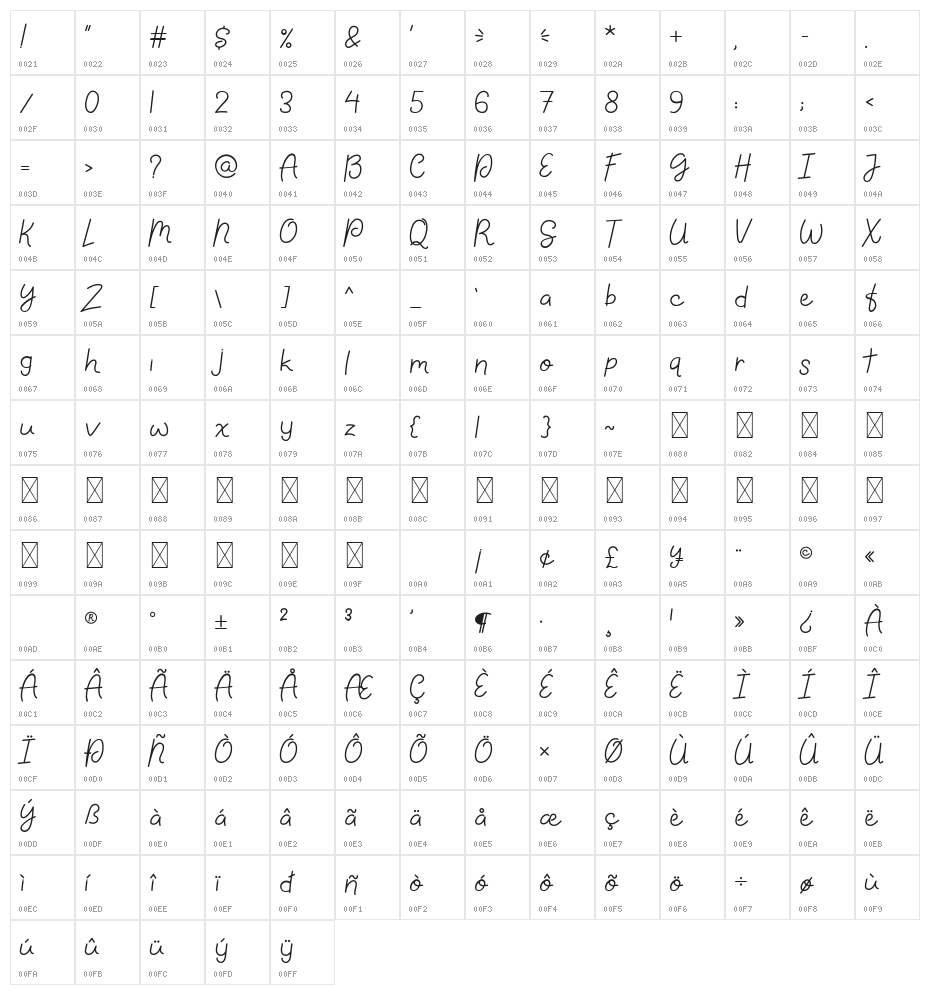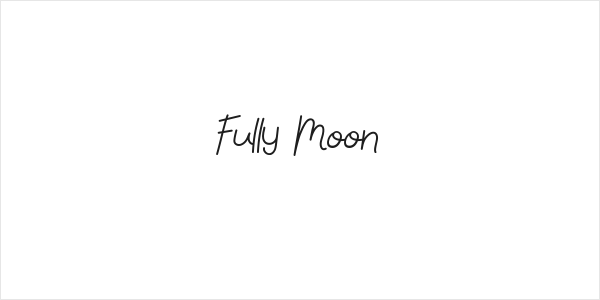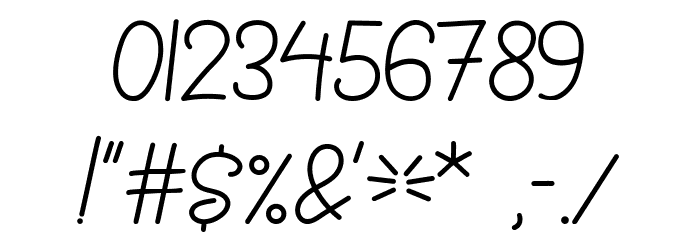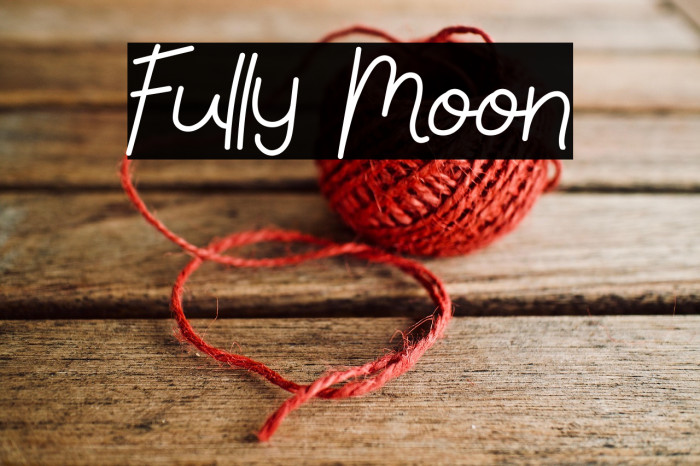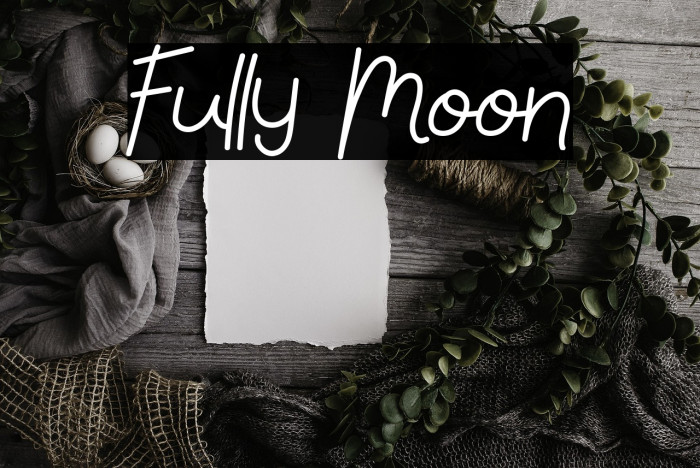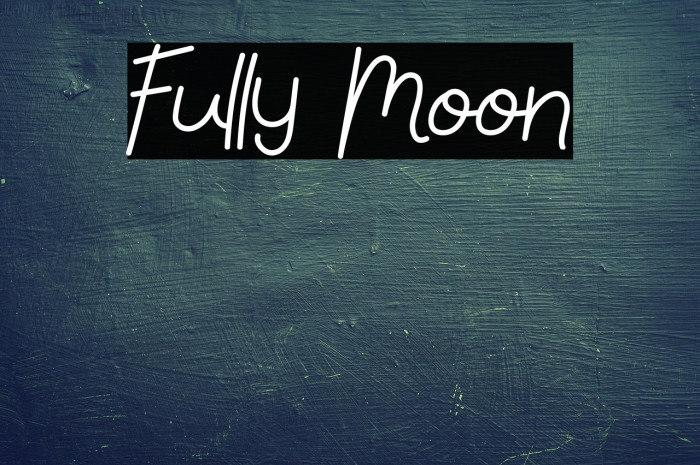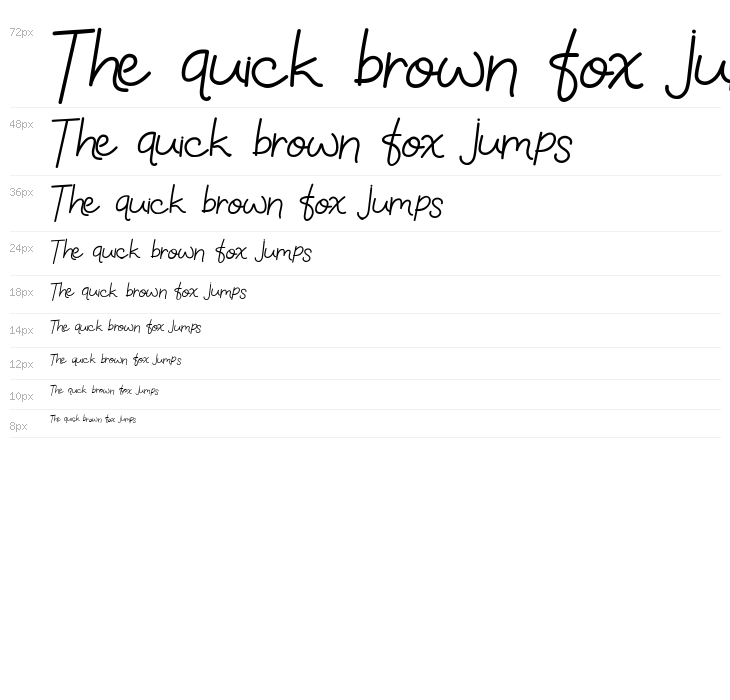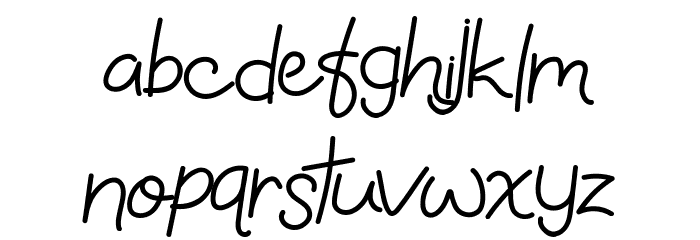
Fully Moon Font
Fully Moon Description
This font features a playful and whimsical handwritten style, characterized by its smooth, flowing lines and slightly irregular letterforms. The uppercase letters maintain a consistent height, while the lowercase letters exhibit a charming, casual appearance. The numerals are clear and easy to read, complementing the overall style. Special characters are integrated seamlessly, maintaining the font's cohesive look. The strokes are uniform in thickness, providing a balanced and harmonious appearance. This font exudes a friendly and approachable vibe, making it suitable for a variety of creative projects.
| Proposed Projects | Ideal for greeting cards, invitations, children's books, and playful branding. |